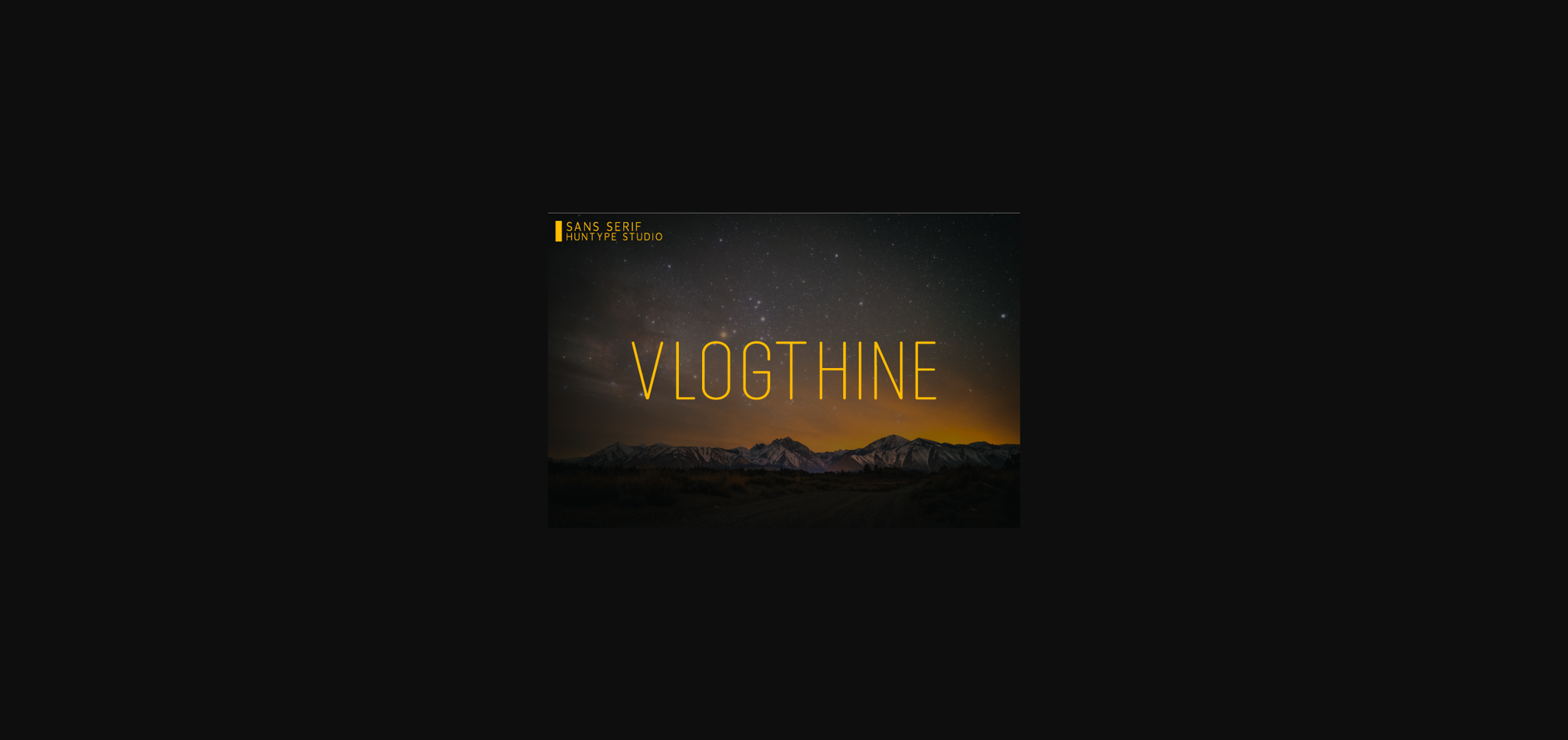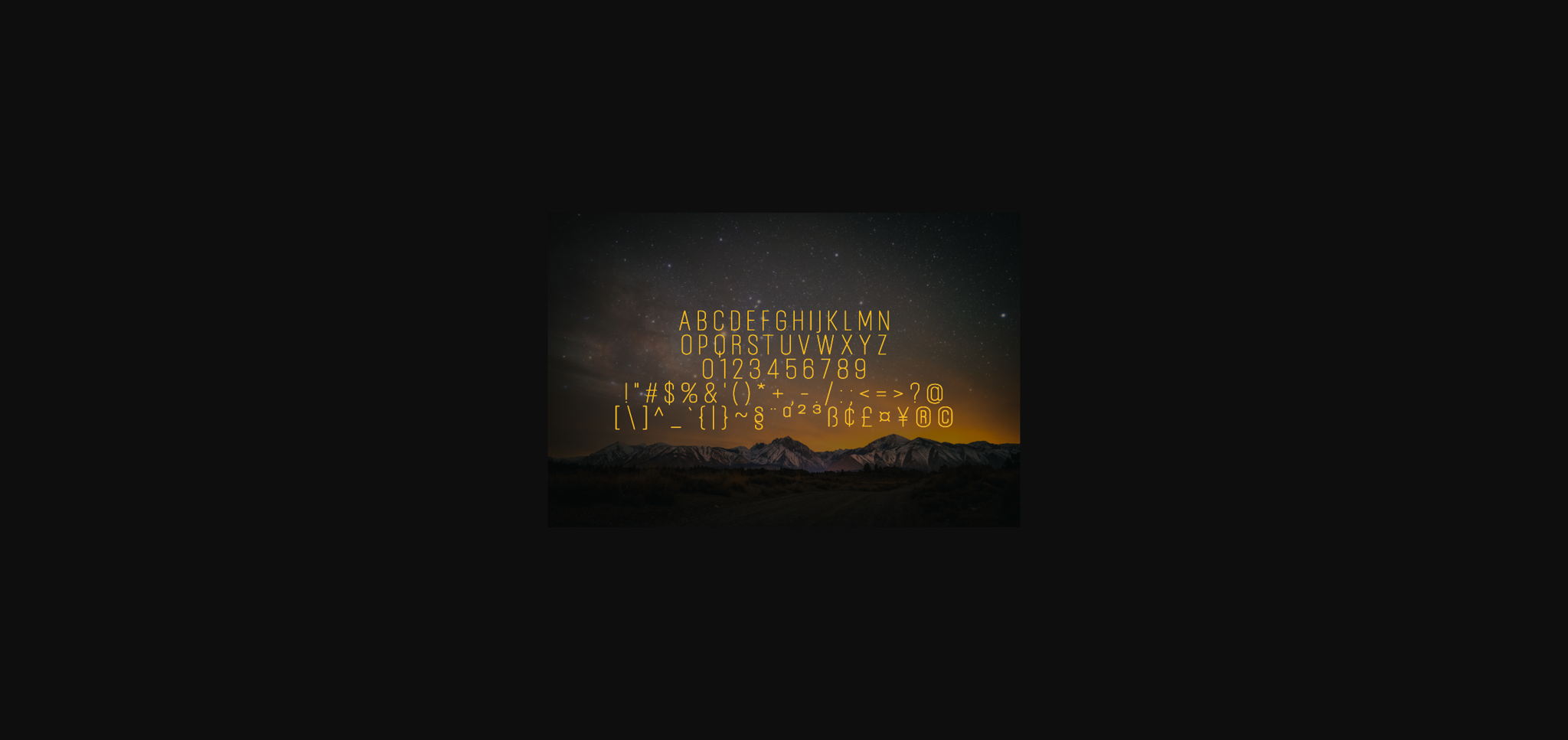
Vlogthine Font
About Vlogthine Font
Vlogthine is a fancy and modern sans serif font. Its casual charm makes it appear wonderfully down-to-earth, readable and, ultimately, incredibly versatile. Vlogthine will look outstanding in any context, whether it’s being used on busy backgrounds or as a standalone headline!